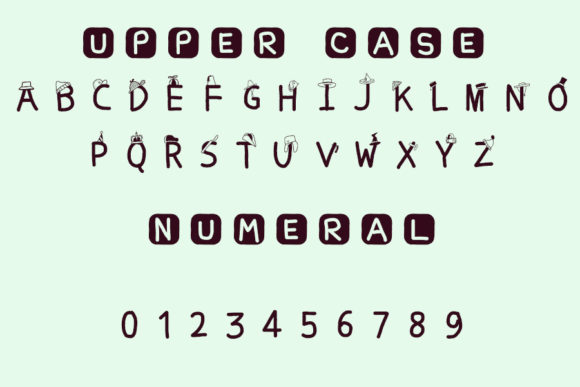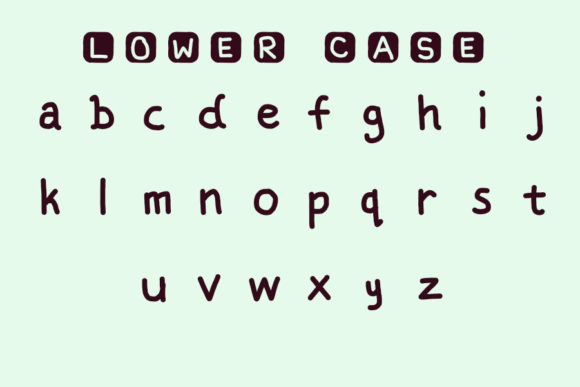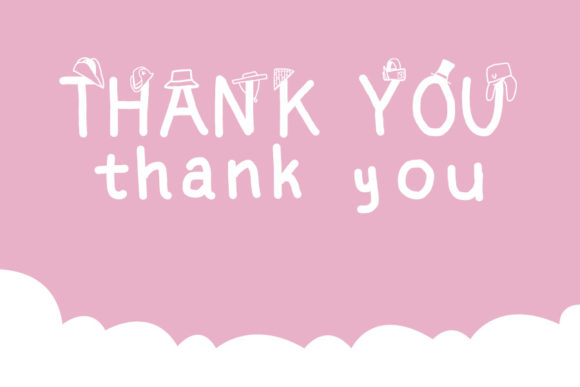
Introducing Hat Party Font: The Ultimate Decorative Font for Designers and Crafters
Are you tired of using the same old fonts in your designs? Do you want to add a touch of whimsy and fun to your creations? Look no further than Hat Party Font, a sweet decorative font that is sure to elevate any project. In this article, we’ll take a closer look at Hat Party Font, its features, and how it can be used to take your designs to the next level.
What is Hat Party Font?
Hat Party Font is a unique and playful font that features hats on nearly each character. This decorative font is perfect for designers and crafters who want to add a touch of personality to their work. Whether you’re creating invitations, greeting cards, or social media graphics, Hat Party Font is sure to make your designs stand out.
Key Features of Hat Party Font
- Unique and Playful Design: Hat Party Font features hats on nearly each character, making it a one-of-a-kind font that’s sure to grab attention.
- Versatile: This font can be used for a wide range of projects, from invitations and greeting cards to social media graphics and more.
- Easily Readable: Despite its decorative nature, Hat Party Font is still easily readable, making it perfect for use in a variety of contexts.
How to Use Hat Party Font in Your Designs
Hat Party Font is incredibly easy to use and can be incorporated into a wide range of designs. Here are a few ideas to get you started:
- Invitations: Use Hat Party Font to create custom invitations for parties, weddings, and other special events.
- Greeting Cards: Add a touch of personality to your greeting cards with Hat Party Font.
- Social Media Graphics: Use Hat Party Font to create eye-catching social media graphics that are sure to grab attention.
- Crafting Projects: Hat Party Font is perfect for use in a variety of crafting projects, from scrapbooking to DIY signs.
Benefits of Using Hat Party Font
There are many benefits to using Hat Party Font in your designs. Here are a few:
- Adds Personality: Hat Party Font adds a touch of personality and whimsy to your designs, making them more engaging and fun.
- Versatile: This font can be used in a wide range of contexts, making it a great addition to any designer’s font library.
- Easily Customizable: Hat Party Font is easily customizable, allowing you to adjust the font to fit your specific design needs.
Tips for Getting the Most Out of Hat Party Font
Here are a few tips for getting the most out of Hat Party Font:
- Experiment with Different Colors: Try pairing Hat Party Font with different colors to create unique and eye-catching designs.
- Use it in Combination with Other Fonts: Hat Party Font pairs well with a variety of other fonts, so don’t be afraid to experiment with different combinations.
- Make it Your Own: Add your own personal touch to Hat Party Font by adjusting the font size, style, and more.
| Font Name | Hat Party Font |
| Author | inworkID |